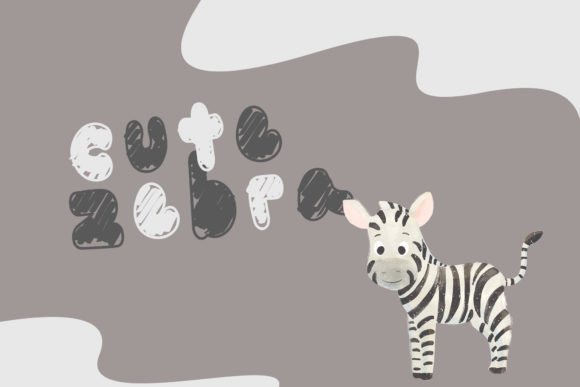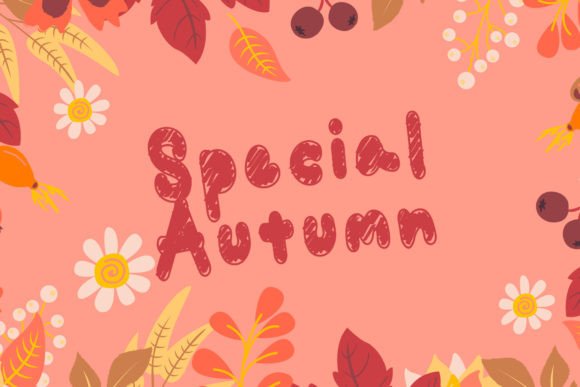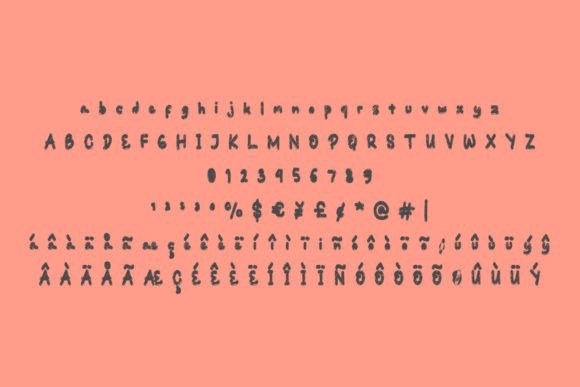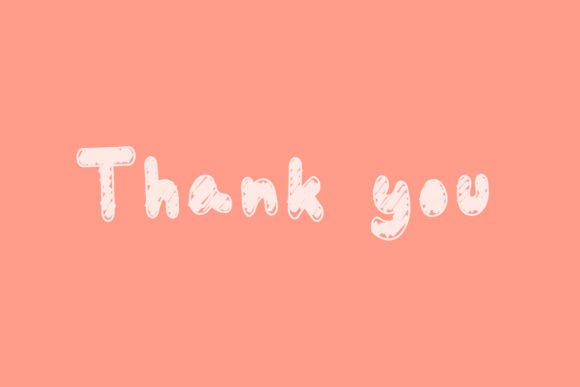
Gomena Sketch Font: The Ultimate Playful Display Font for Designers and Crafters
Are you tired of using the same old fonts for your designs and crafts? Look no further! Gomena Sketch Font is here to add a touch of playfulness and fun to your projects. This versatile display font is perfect for a wide range of applications, from digital design and presentations to crafting and making greeting cards. In this article, we’ll dive into the world of Gomena Sketch Font and explore its features, benefits, and uses.
What is Gomena Sketch Font?
Gomena Sketch Font is a unique and creative typeface designed to bring a smile to your face. Its playful and fun characteristics make it an excellent choice for designers and crafters looking to add a personal touch to their work. The font’s sketch-like appearance gives it a hand-drawn feel, making it perfect for projects that require a more organic and whimsical approach.
Key Features of Gomena Sketch Font
- Playful and Fun Design: Gomena Sketch Font boasts a playful and fun design that’s sure to capture the attention of your audience.
- Versatile: This font is perfect for various applications, including digital design, presentations, crafting, and making greeting cards.
- Easy to Read: Despite its playful nature, Gomena Sketch Font is easy to read, making it suitable for both headlines and body text.
- High-Quality: The font is designed with high-quality and crisp lines, ensuring it looks great in both digital and print formats.
Benefits of Using Gomena Sketch Font
So, why should you choose Gomena Sketch Font for your next project? Here are just a few benefits:
- Adds Personality to Your Work: Gomena Sketch Font helps you add a personal touch to your designs and crafts, setting you apart from the crowd.
- Perfect for Branding and Marketing: The font’s playful and fun design makes it ideal for branding and marketing materials, such as logos, brochures, and social media graphics.
- Great for Crafting and DIY Projects: Gomena Sketch Font is perfect for crafters and DIY enthusiasts looking to add a touch of personality to their projects, such as greeting cards, scrapbooking, and journaling.
Uses of Gomena Sketch Font
Gomena Sketch Font is an incredibly versatile font that can be used in a wide range of applications, including:
- Digital Design: Use the font for social media graphics, blog posts, and website headers.
- Presentations: Add a touch of personality to your presentations with Gomena Sketch Font.
- Crafting and DIY Projects: Use the font for greeting cards, scrapbooking, journaling, and other crafty projects.
- Branding and Marketing: Use the font for logos, brochures, and other marketing materials.
Tips for Using Gomena Sketch Font
Here are a few tips to help you get the most out of Gomena Sketch Font:
- Experiment with Different Sizes and Colors: Play around with different sizes and colors to find the perfect combination for your project.
- Pair it with Other Fonts: Combine Gomena Sketch Font with other fonts to create a unique and visually appealing design.
- Use it for Headlines and Titles: The font’s playful and fun design makes it perfect for headlines and titles.
Gomena Sketch Font is a playful and fun display font that’s perfect for designers and crafters looking to add a personal touch to their work. Its versatility, ease of use, and high-quality design make it an excellent choice for a wide range of applications. Whether you’re working on a digital design project, crafting a greeting card, or creating a presentation, Gomena Sketch Font is sure to become your go-to font. So why not give it a try and see the difference it can make in your designs?